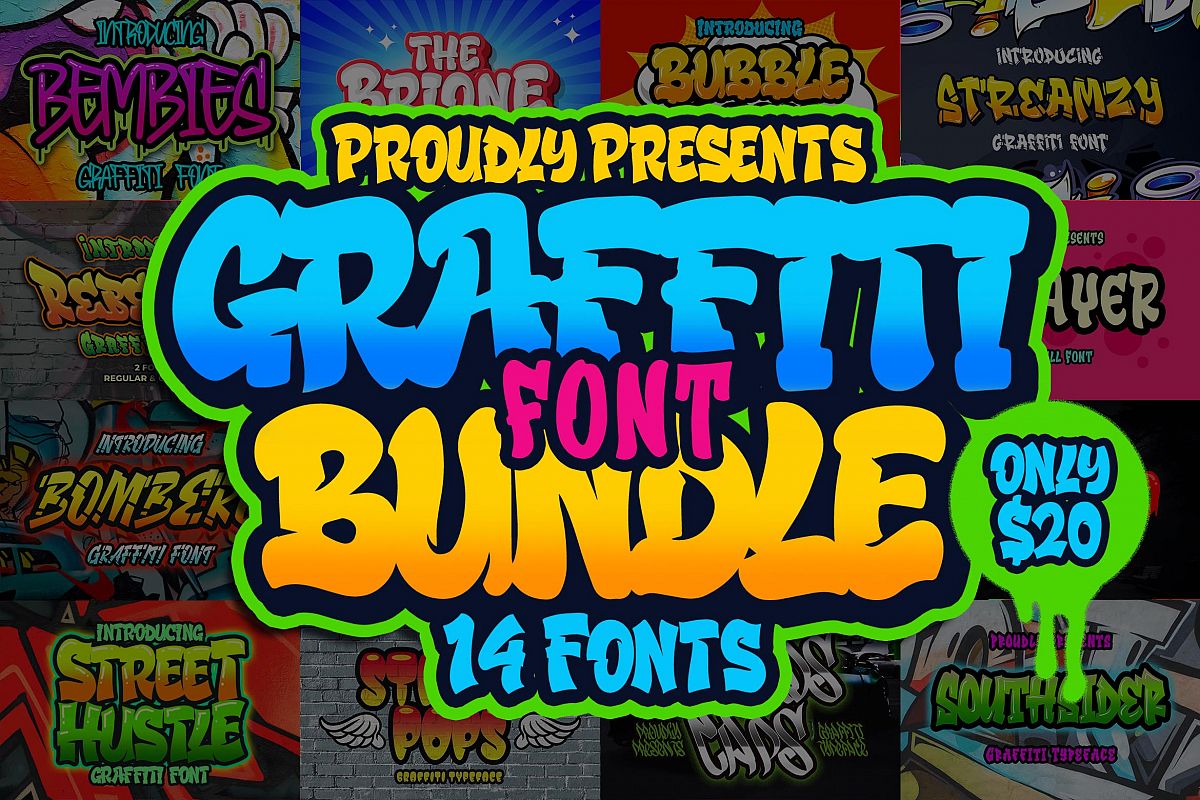
Graffiti Font Bundle
Bubble Boom
Gendarwo
Street Hustle
Swerds Caps
Rebeland Outline
Sprayer
Bombero
Rebeland Regular
Ms Nicky
Bembies
Brione
Street Pops
Southsider
Streamzy
Graffity Font Bundle
This fonts is ideal for crafting, branding and decorate your any project. This fonts are perfect for wedding invitation or your blog. Also with their help, you can create a logo or beautiful frame for your home. Or just use for your business, book covers, stationery, marketing, magazines and more.